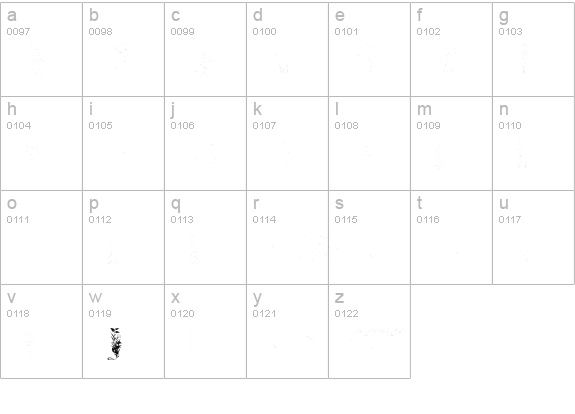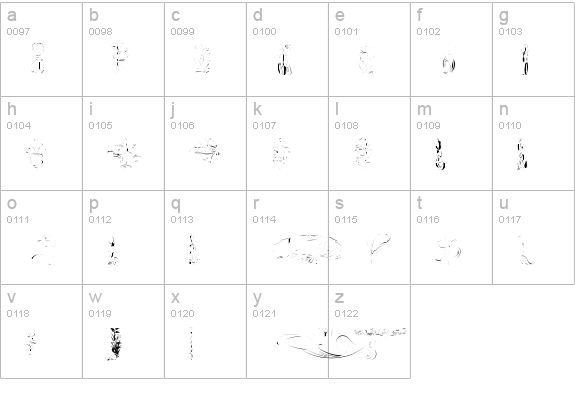
Art Nouveau Blume font is a stunning and elegant typeface that embodies the essence of the Art Nouveau movement. Its intricate and flowing lines, inspired by nature and organic forms, give this font a unique and timeless appeal. The delicate curves and ornate details of Art Nouveau Blume make it perfect for adding a touch of sophistication to any design project. This font is not only visually captivating but also versatile, making it suitable for a wide range of applications such as branding, invitations, posters, and more. Its graceful and elegant appearance will surely make your designs stand out. The best part is that Art Nouveau Blume font is available for free download at FontsMarket.com. So, why wait? Add a touch of Art Nouveau charm to your projects with this beautiful and captivating font today.